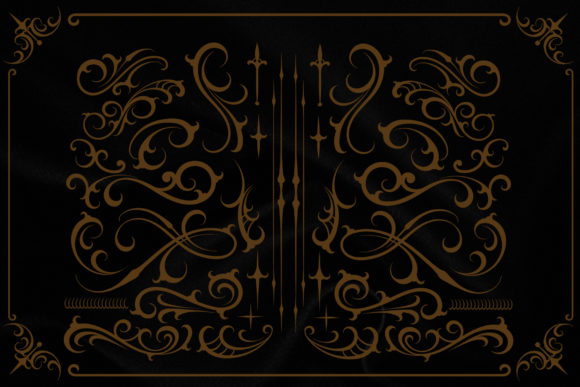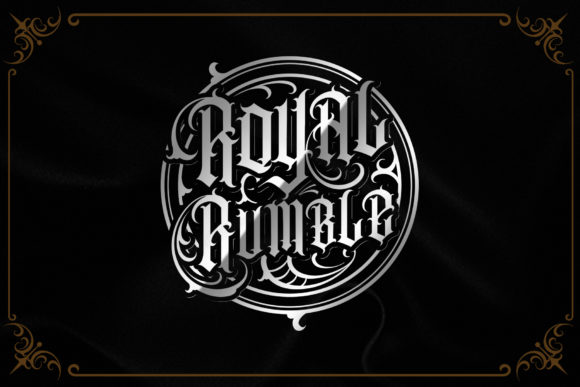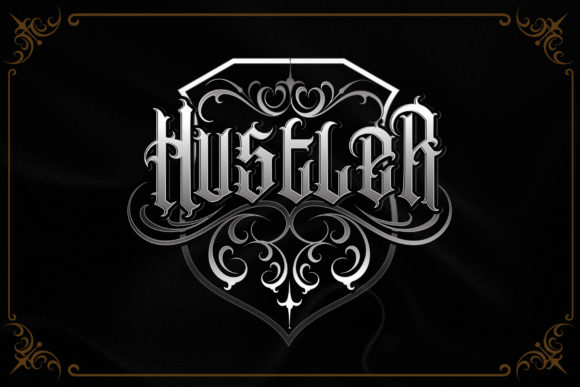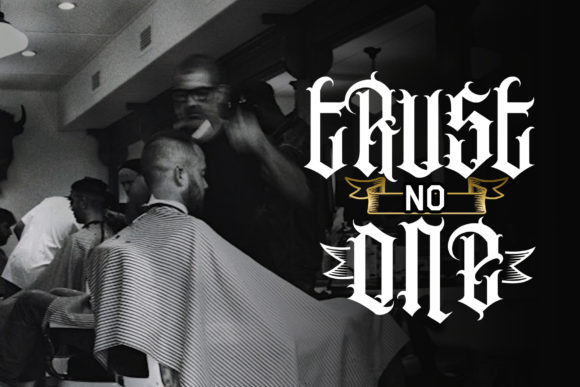
Unleash Your Creativity with Goldust Font: A Unique Blackletter Masterpiece
Are you tired of using the same old fonts for your creative projects? Look no further than Goldust, an incredibly unique and distinct blackletter font that’s sure to take your designs to the next level. Masterfully designed to become a true favorite, Goldust has the potential to bring each of your creative ideas to the highest level, making it a must-have for designers and crafters alike.
The Story Behind Goldust Font
Goldust font is a carefully crafted blackletter font that’s designed to make a statement. Its unique and intricate design elements make it stand out from other fonts, giving it a distinctive look that’s sure to grab attention. Whether you’re working on a logo, a poster, or a packaging design, Goldust font is the perfect choice for adding a touch of elegance and sophistication.
What Makes Goldust Font So Special?
So, what sets Goldust font apart from other fonts? Here are just a few reasons why Goldust is a cut above the rest:
- Unique Design: Goldust font features a one-of-a-kind design that’s unlike anything you’ve seen before. Its intricate details and bold lines make it a true masterpiece.
- Versatility: Goldust font is incredibly versatile, making it perfect for a wide range of design projects, from logos and posters to packaging and more.
- Elegance: Goldust font exudes elegance and sophistication, making it perfect for designs that require a touch of luxury.
- Readability: Despite its intricate design, Goldust font is surprisingly readable, making it perfect for both headlines and body text.
How to Use Goldust Font in Your Designs
Now that you know why Goldust font is so special, let’s talk about how to use it in your designs. Here are a few tips to get you started:
- Pair it with a sans-serif font: For a bold and modern look, pair Goldust font with a clean sans-serif font.
- Use it for headlines: Goldust font is perfect for headlines and titles, where its unique design can really shine.
- Experiment with colors: Goldust font looks great in a variety of colors, so don’t be afraid to experiment and find the perfect hue for your design.
Why Designers and Crafters Love Goldust Font
Goldust font has quickly become a favorite among designers and crafters, and it’s easy to see why. Here are just a few reasons why Goldust font is a must-have for creatives:
- Time-saving: With Goldust font, you can create stunning designs in no time, saving you hours of work and frustration.
- Inspiring: Goldust font is sure to inspire your creativity, helping you to come up with new and innovative design ideas.
- Professional-looking: Goldust font is perfect for creating professional-looking designs that are sure to impress.
In conclusion, Goldust font is an incredibly unique and distinct blackletter font that’s sure to take your designs to the next level. With its intricate design, versatility, and elegance, Goldust font is a must-have for designers and crafters alike. Whether you’re working on a logo, a poster, or a packaging design, Goldust font is the perfect choice for adding a touch of sophistication and luxury. So why wait? Download Goldust font today and unleash your creativity!